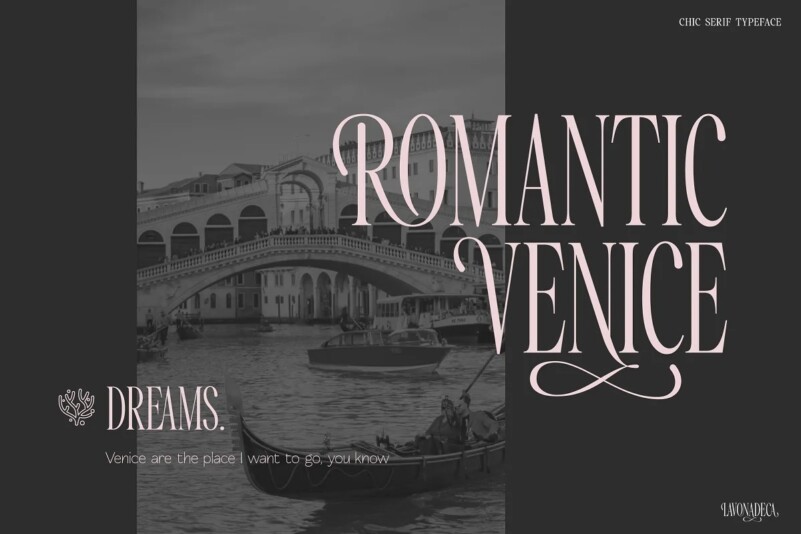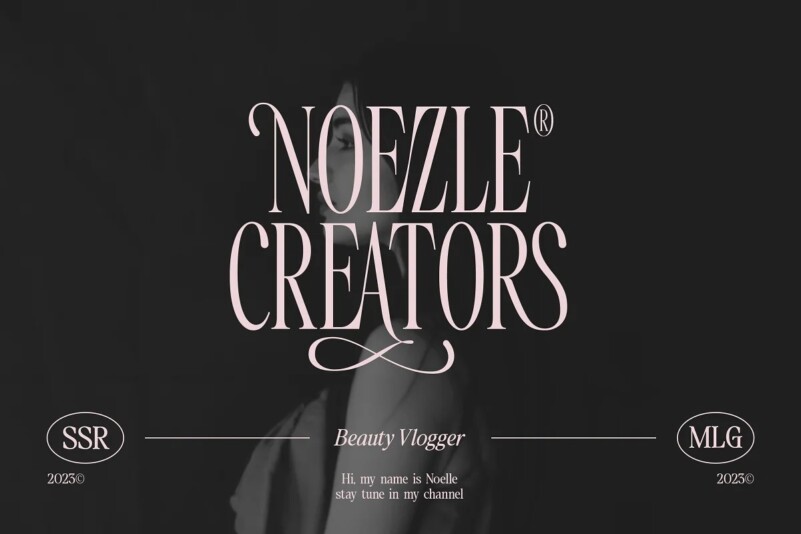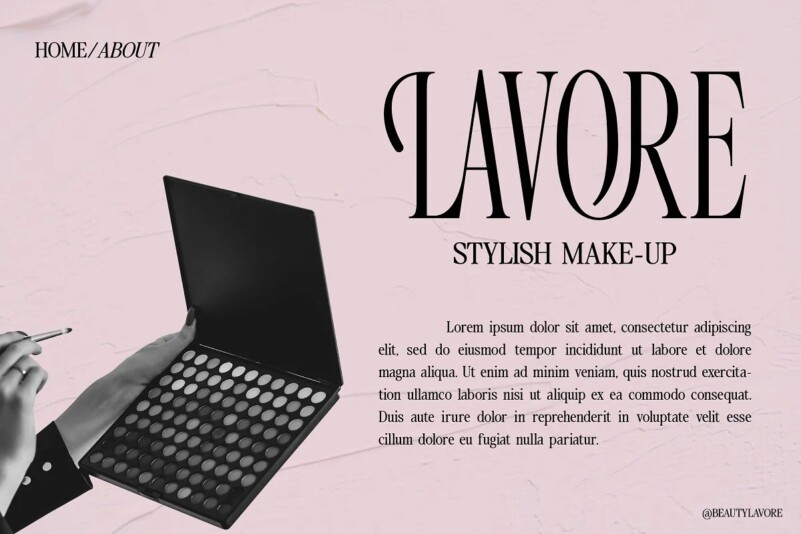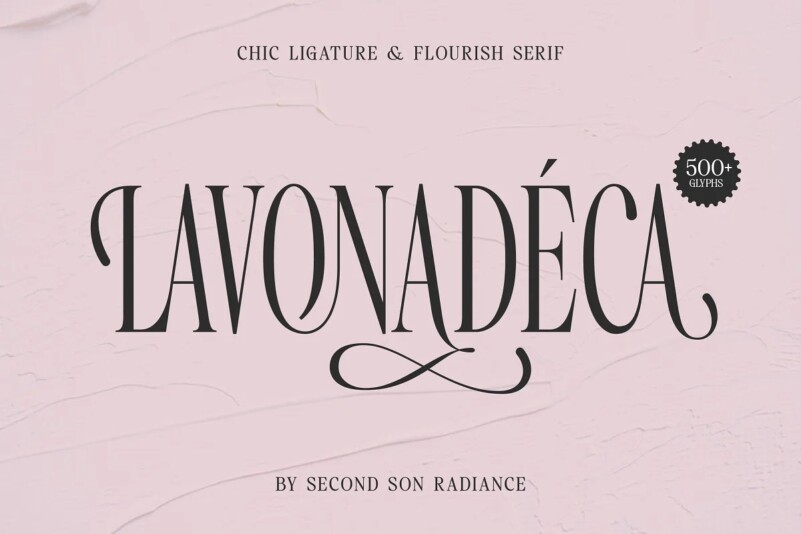
Lavonadeca Font is a creative stylish ligature serif font crafted & designed by Second Son Radiance. Each letter is beautifully crafted which has an elegant look that attracts a tall, minimalist and slender shape. Specially designed for luxury, elegant, feminine projects, this font is perfectly suitable for creating modern, chic designs.